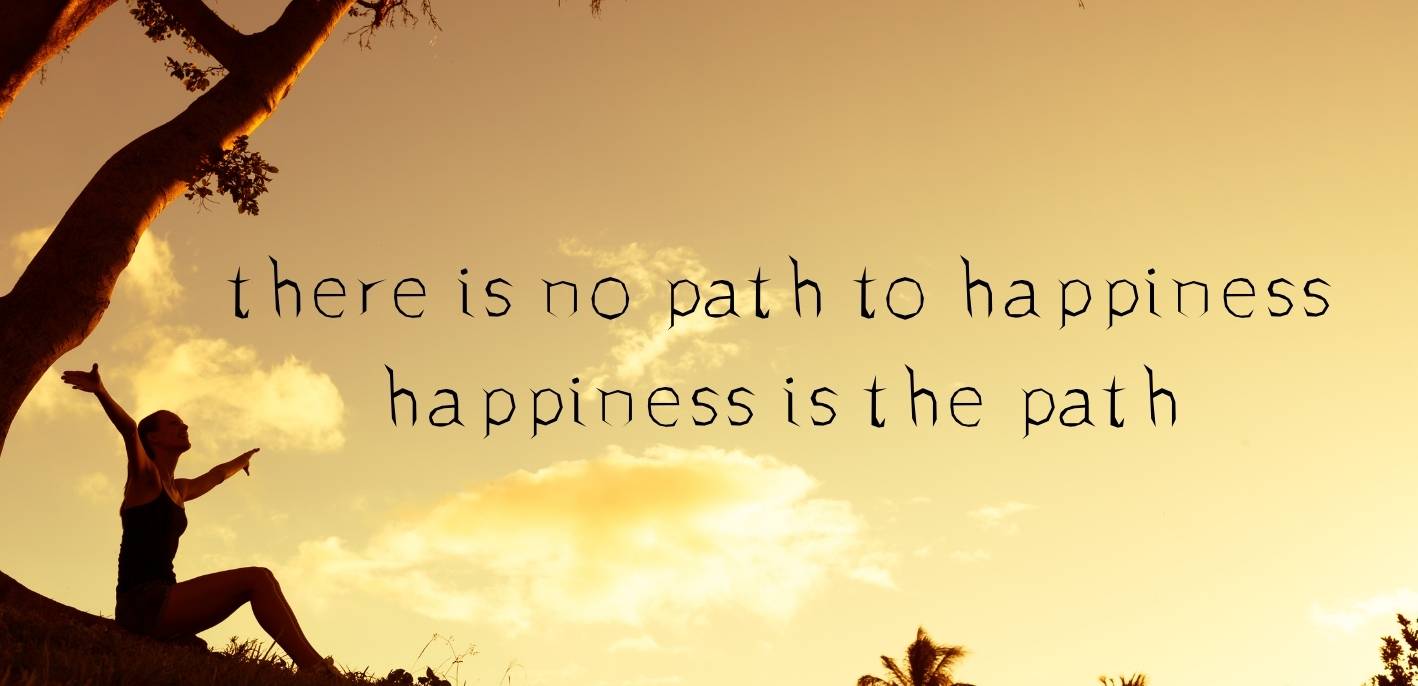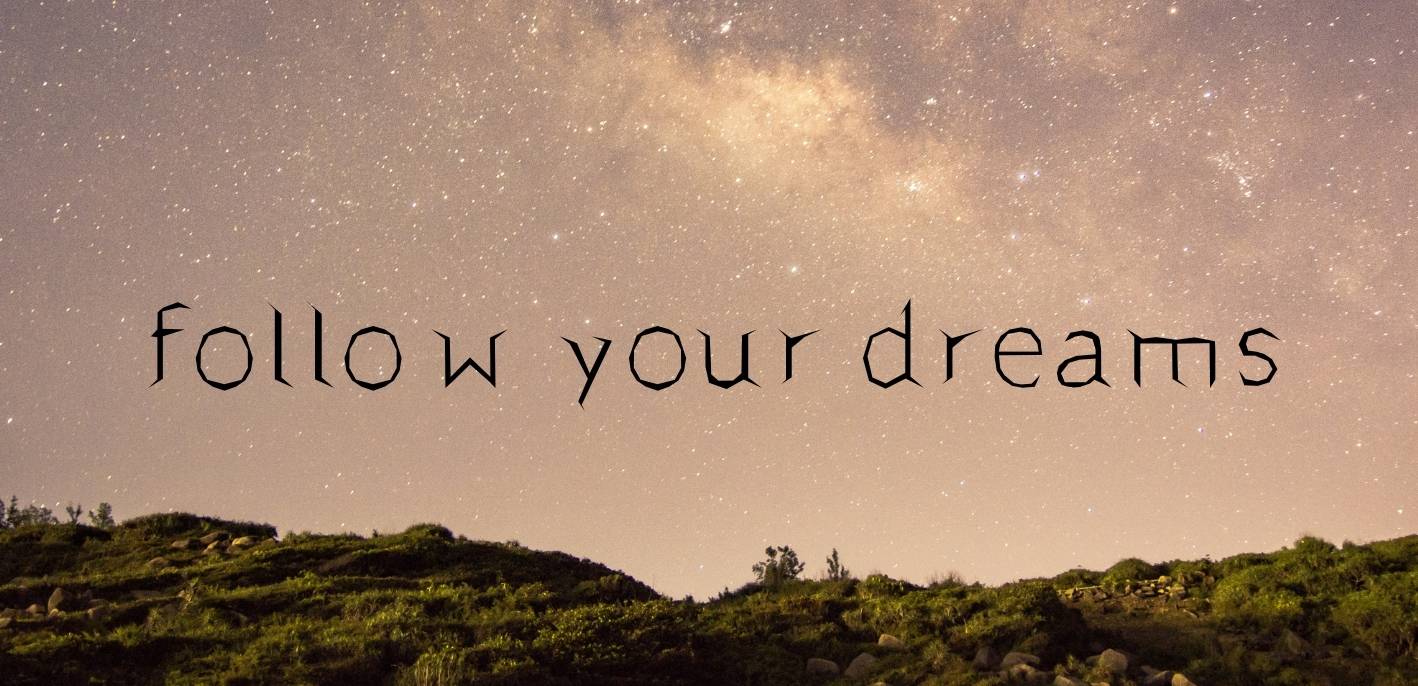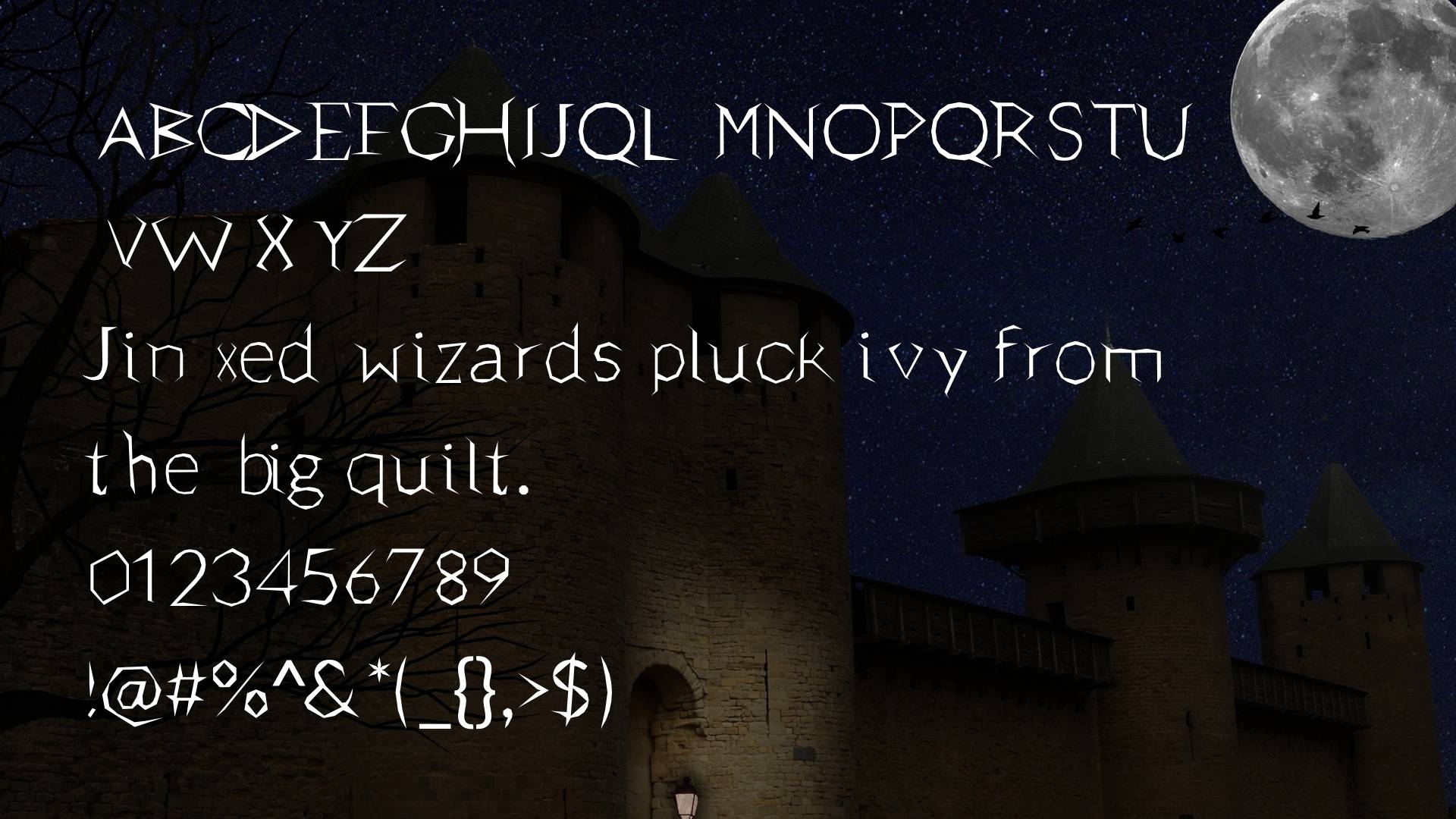
Scary Roots Font
Scary Roots Font is a phenomenal and very unique typeface family in the category of Horror. It is a very perfect font for your creepy and horrible designs which was designed by a remarkable designer named Boldfonts. They are also famous for some other typefaces that are still very demandable by worldwide designers. This font family has various styles and features which make this typeface very unique from some other creepy typefaces. If you want to bring a decorative and dramatic touch to your designs then choose this typeface.
Scary Roots Font comes in only one weight but it comprises plenty of features such as OpenType and TrueType, a complete set of scary and stylish characters including all case letters, general punctuations, currency symbols, basic numbers, updated icons, and so many special characters which increases the font’s usage in the type marketplace as well as provide a clear appearance and legibility on any size of the display screen. Moreover, its high-quality glyphs are another impressive quality of this typeface which provides an ornamental touch to any kind of design.
In addition, this font family has stylistic alternates, ligatures, superb swashes and it is also supported all European characters and even some other characters such as Latin and Cyrillic characters. has also some extra features that you can’t get in any other typeface. It is available in a free version on our website for all your personal project but with some limited features. If you need to use its whole features then contact the Boldfonts.
The lettering of this family with amazing thin scarry strokes and sharp edges texturing would be an ideal font for your horrible designs. So, apply now this font to many of your designing tasks like you can create appealing card designs, logotypes, Book covers, Horror type video game titling, Websites, Scary themes, decorative headlines, and so on. This font can also be paired with many other typefaces but Avenir Font would make the best pairing with Scary Roots Font.
This kind of font is always an ideal font for notable designers and Corporations and they always looking for such kinds of unique typefaces. If you are the one among them then why not choose this decorative typeface. There are also many similar horror typefaces that you can see every day on the web but Raven Song Font, Forbid Nothing Font and Feral Font are the closest fonts to this typeface.